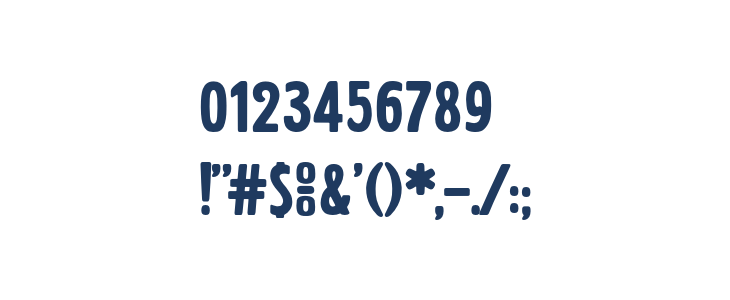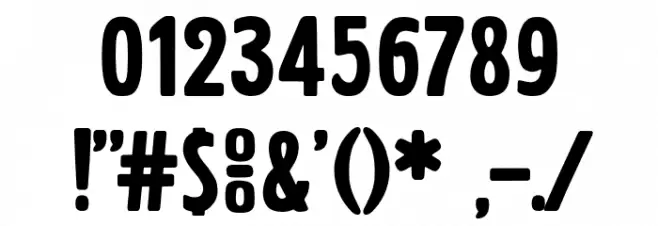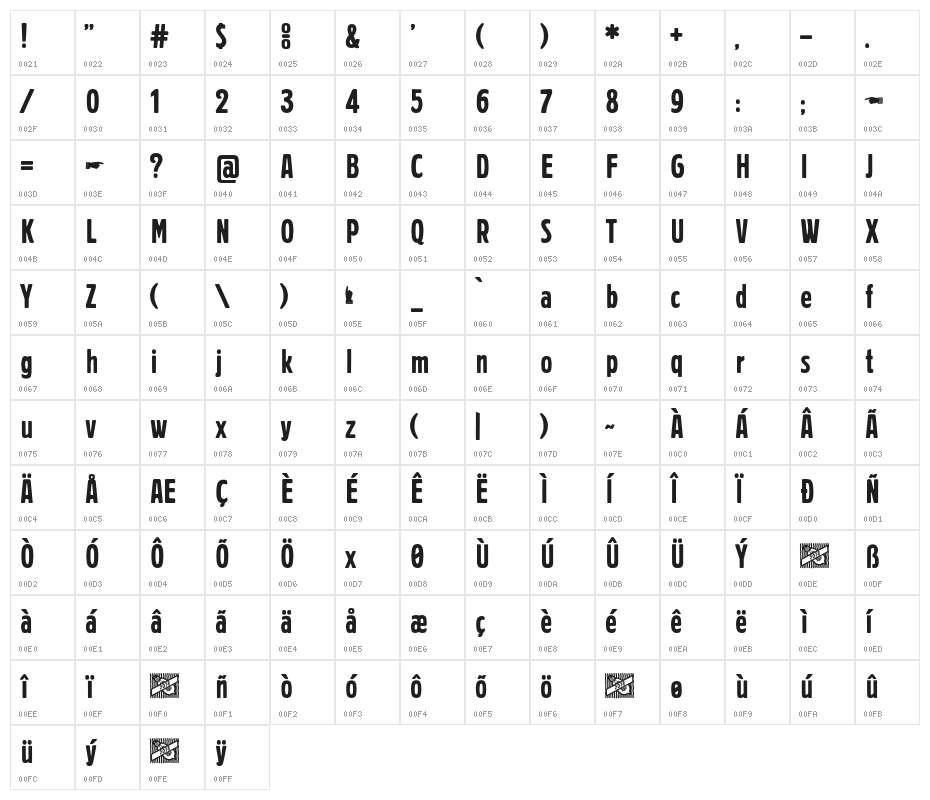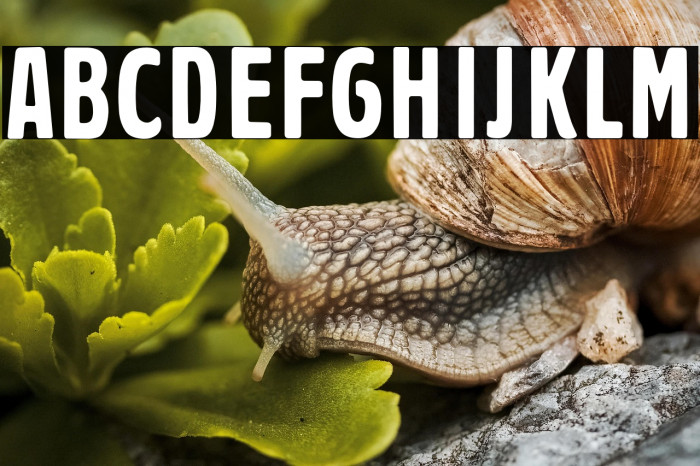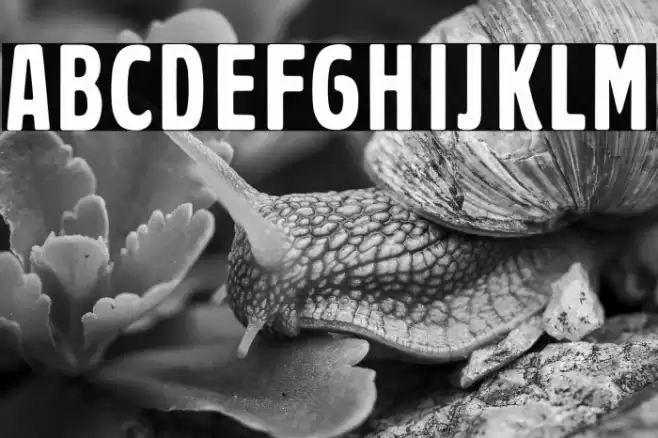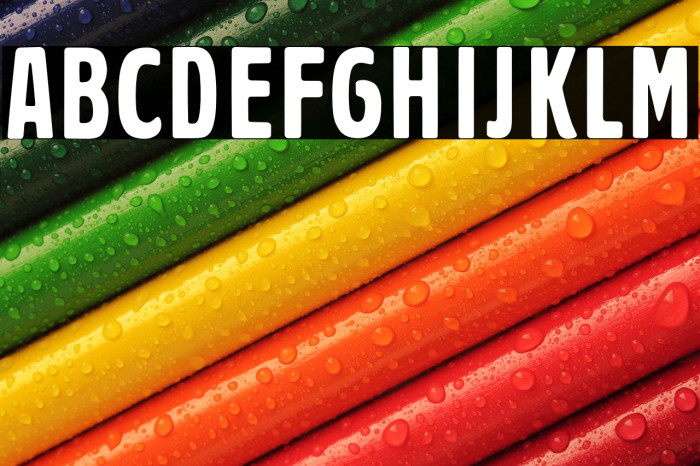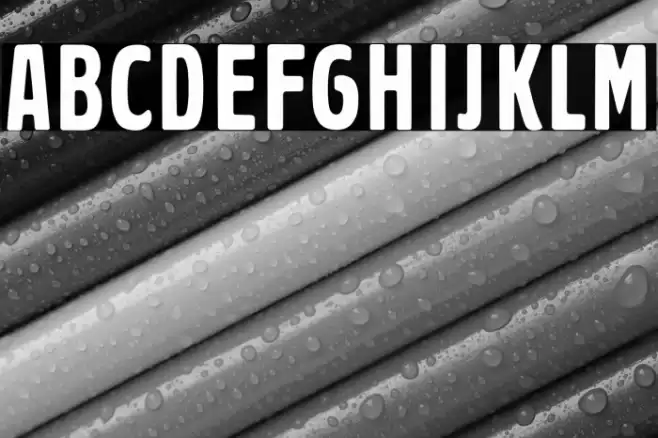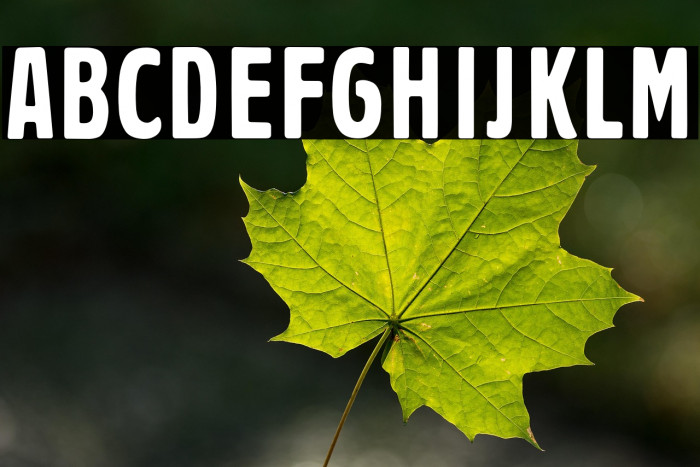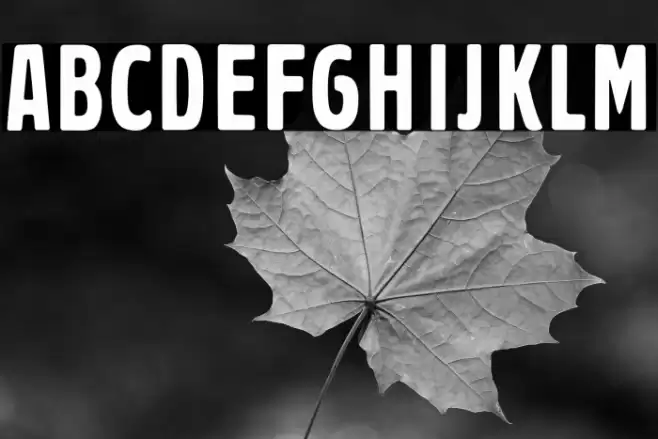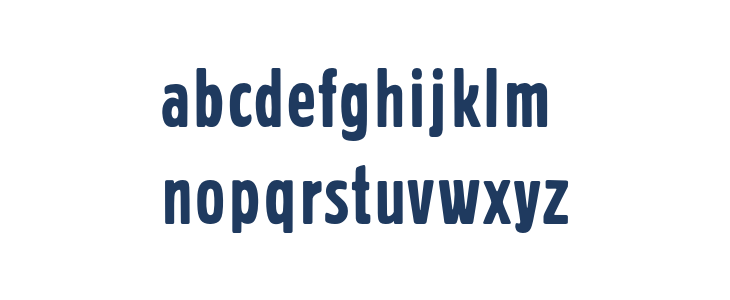
PragerHeadlines Font
This font features bold, rounded characters with a strong presence, making it ideal for attention-grabbing headlines. The uppercase letters are robust and slightly condensed, while the lowercase letters maintain a consistent weight, offering a harmonious balance. The numerals are clear and legible, matching the boldness of the alphabet. Special characters are well-defined, adding versatility to the font. The overall design is modern and impactful, suitable for various digital and print media applications.
| Proposed Projects | Ideal for use in headlines, posters, advertising materials, and branding projects where a strong visual impact is desired. |